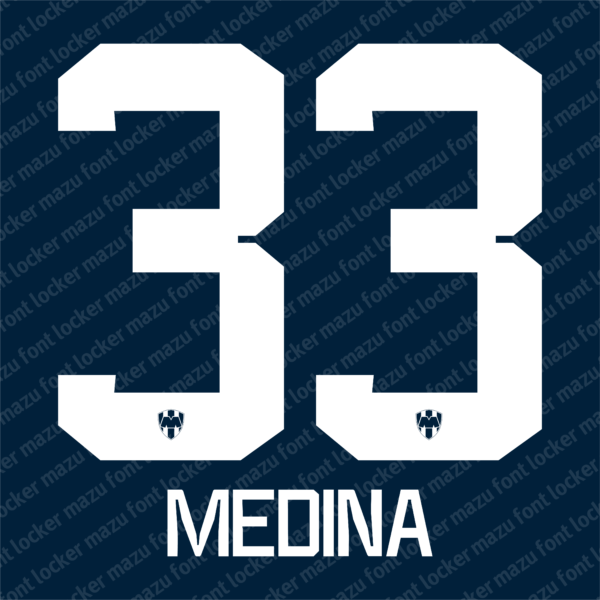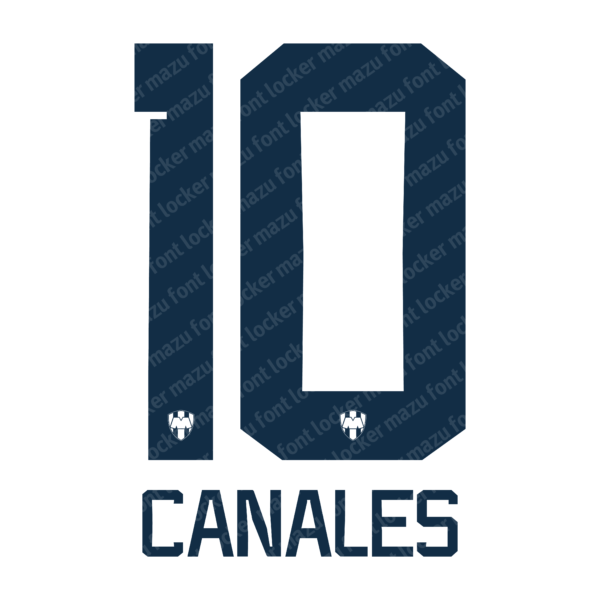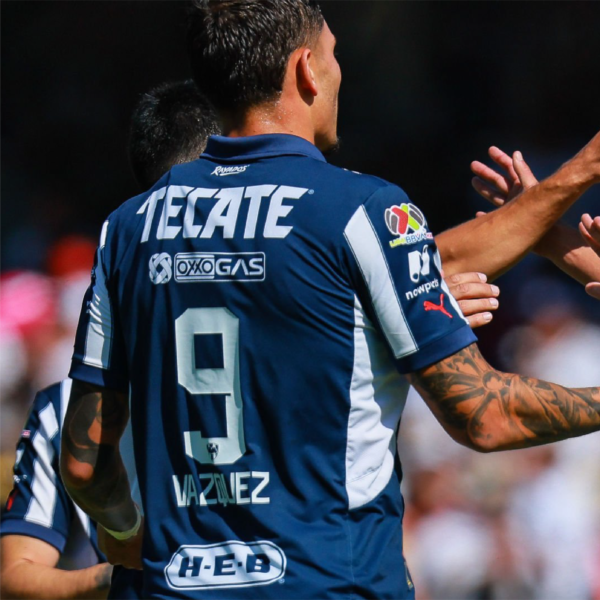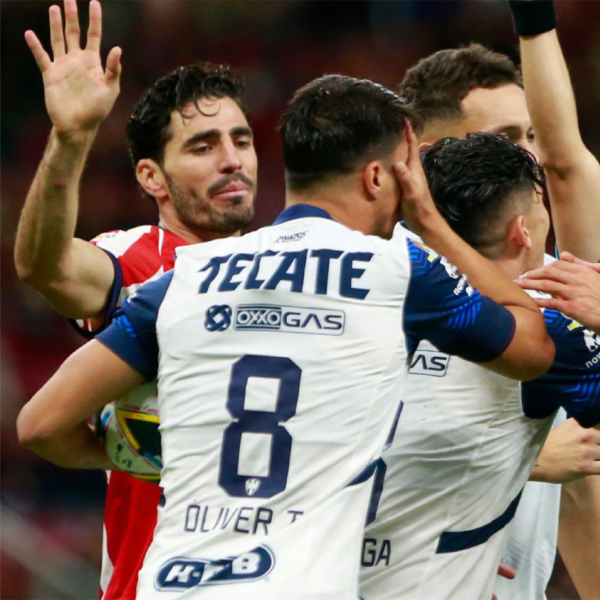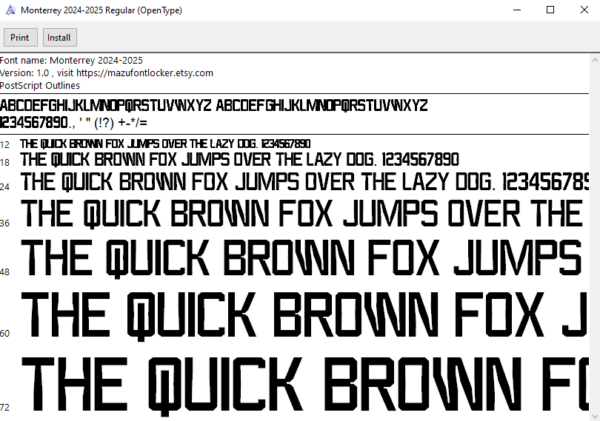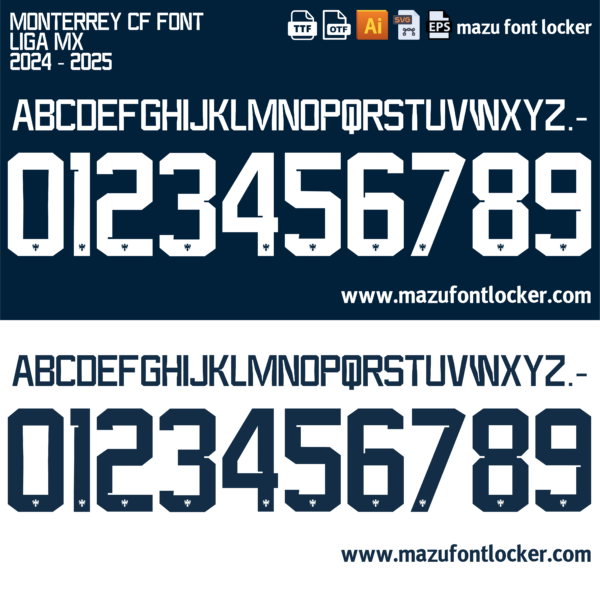
Monterrey 2024-2025 Font Vector – Inspired by the Legendary Rayados
Download Monterrey 2024-2025 Font today and bring the proud spirit of a legendary club into your designs. Monterrey 2024-2025 Font is a modern bold sans-serif typeface inspired by the rich history and winning mentality of CF Monterrey, the iconic Rayados since 1945.
With its strong presence, clean lines, and premium elegance, Monterrey 2024-2025 Font captures the power and resilience that defined the club’s journey from northern Mexico’s oldest professional team to multiple Liga MX champions and CONCACAF giants. This versatile font is perfect for branding, posters, logos, social media, websites, and bold creative projects that demand attention.
Engineered for maximum impact, Monterrey 2024-2025 Font delivers sharp vector quality and flexible weights that help your designs radiate confidence, strength, and modern sophistication — just like the club’s legendary spirit.
Whether you’re creating for sports, fashion, corporate, or digital content, this font gives every word the authoritative feel of a champion.
Monterrey 2024-2025 Font Vector
The Monterrey 2024-2025 Font is a premium, high-precision football jersey font vector expertly crafted to embody the fearless identity, glorious heritage, and explosive passion of one of Mexico’s biggest and most successful football clubs.
Inspired by CF Monterrey’s legendary warrior spirit, their relentless pursuit of glory, and historic triumphs in Liga MX and CONCACAF, this font delivers a bold, aggressive, and majestic visual style that captures the true essence of northern Mexican football dominance. Every letter and number has been meticulously recreated with razor-sharp precision to reflect the unbreakable determination, winning mentality, and iconic blue-and-white identity that defines the mighty Rayados.
Built for professional sports designers, football content creators, jersey customizers, sublimation printing, fan merchandise, and high-end creative projects, this font excels in both digital and premium print production. Its clean vector quality guarantees maximum sharpness, flawless scalability, and authentic stadium-ready aesthetics in every use.
Celebrate the legacy of CF Monterrey. Unleash the power of the Rayados. Bring the unstoppable spirit of Monterrey football greatness to life with the Monterrey 2024-2025 Font.
🔥 Monterrey 2024-2025 Font Features
• Authentic 2024-2025 Monterrey jersey lettering style
The authentic lettering style helps recreate the classic look of the Monterrey 2024-2025 kit with professional accuracy.
Unlike generic jersey fonts, this set is designed with a strong focus on authenticity and accuracy. Every detail is based on the original match lettering style used during the 2024-2025, helping designers and collectors create realistic football shirt designs.
This Monterrey 2024-2025 font vector set is designed for authentic football jersey customization and works perfectly for retro football projects, collector designs, and professional sportswear artwork.